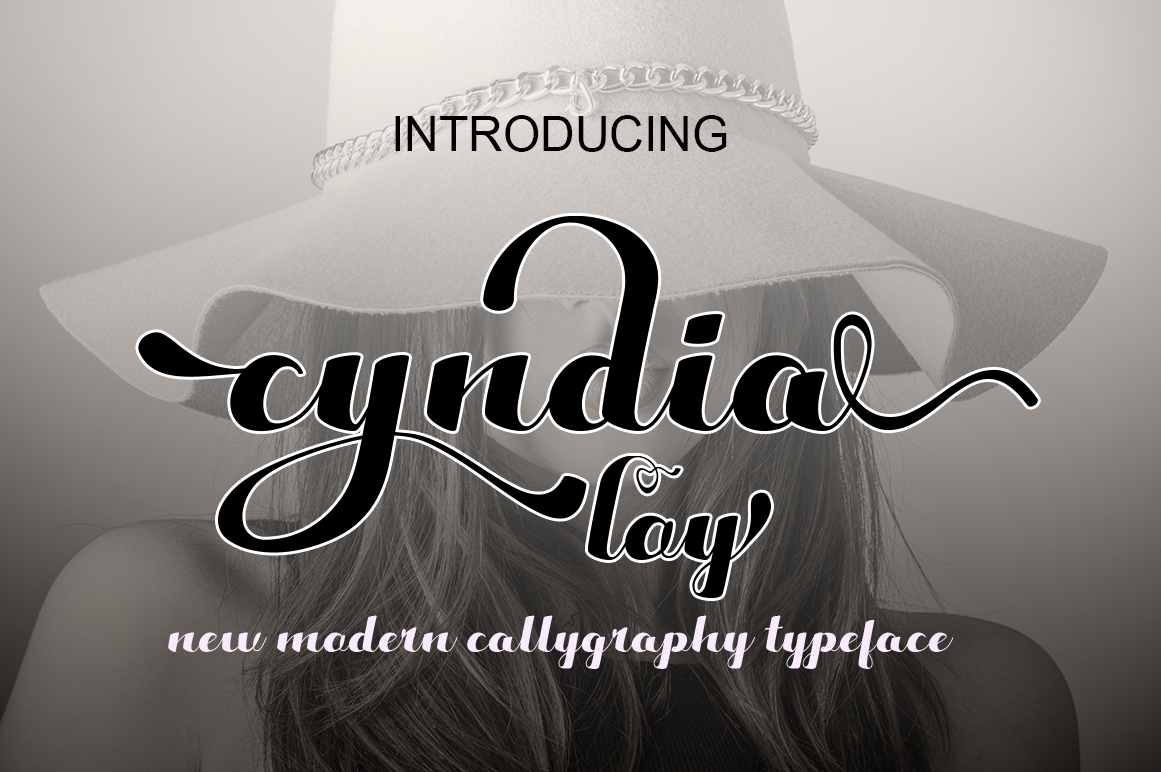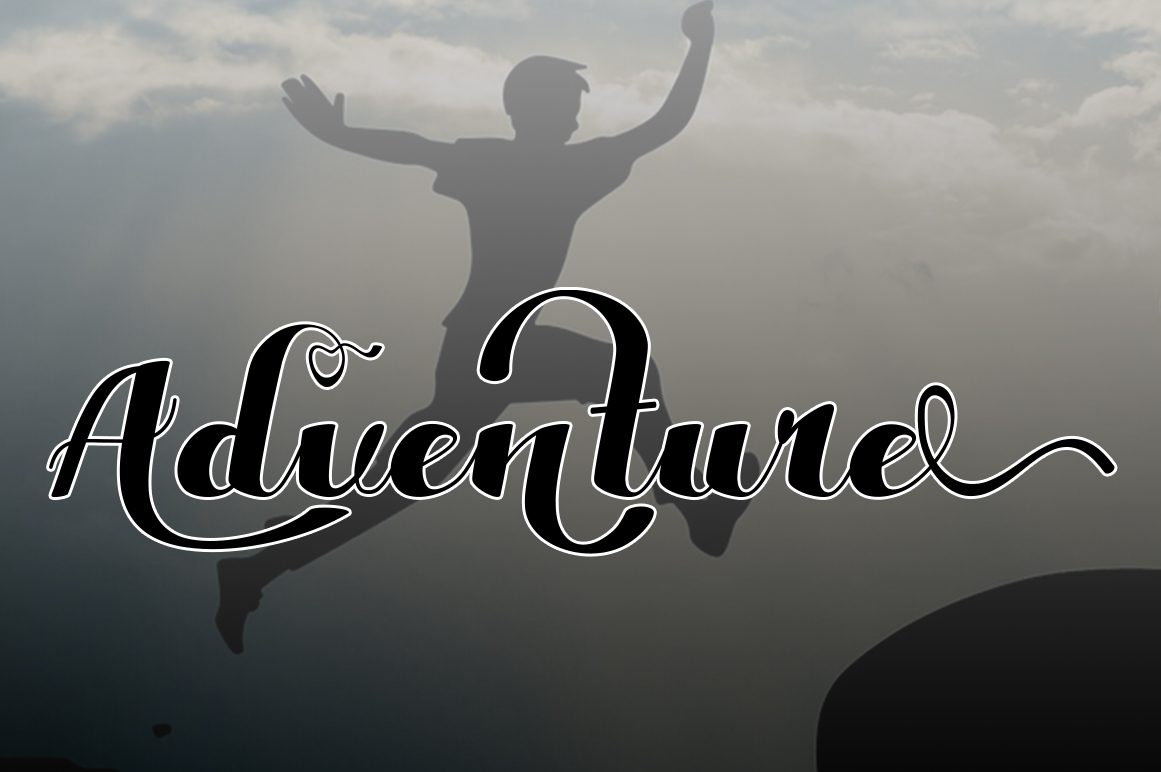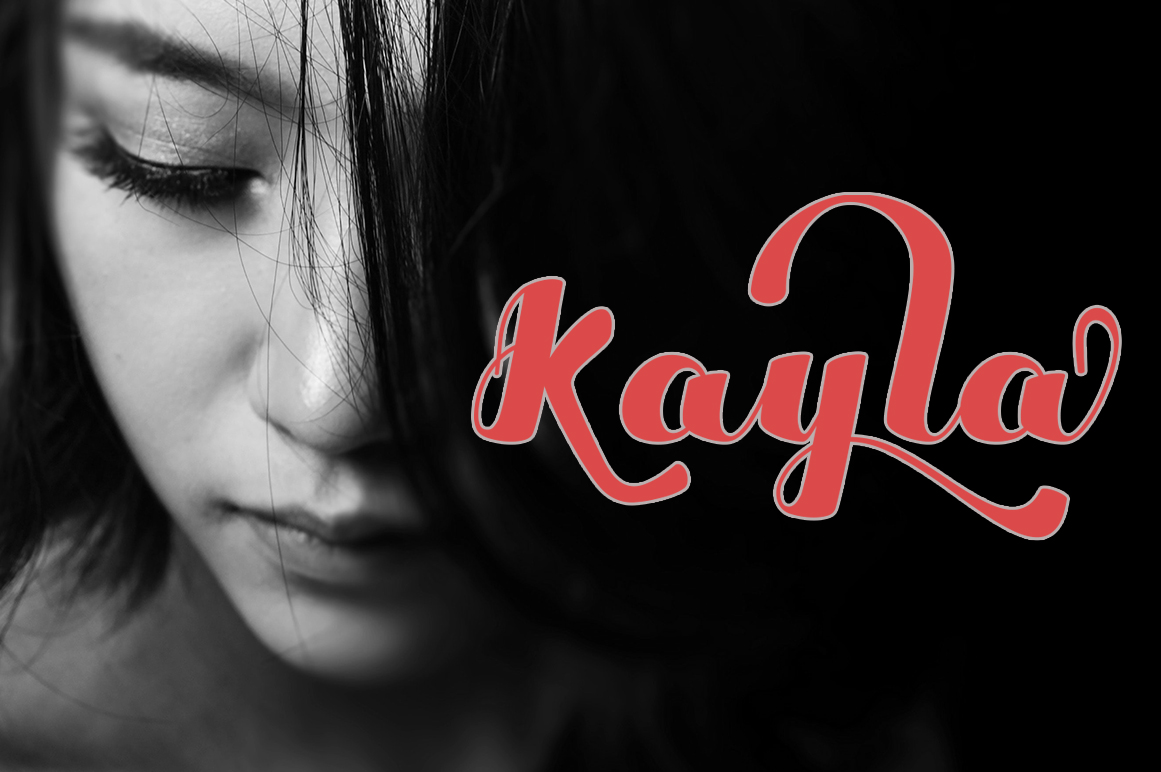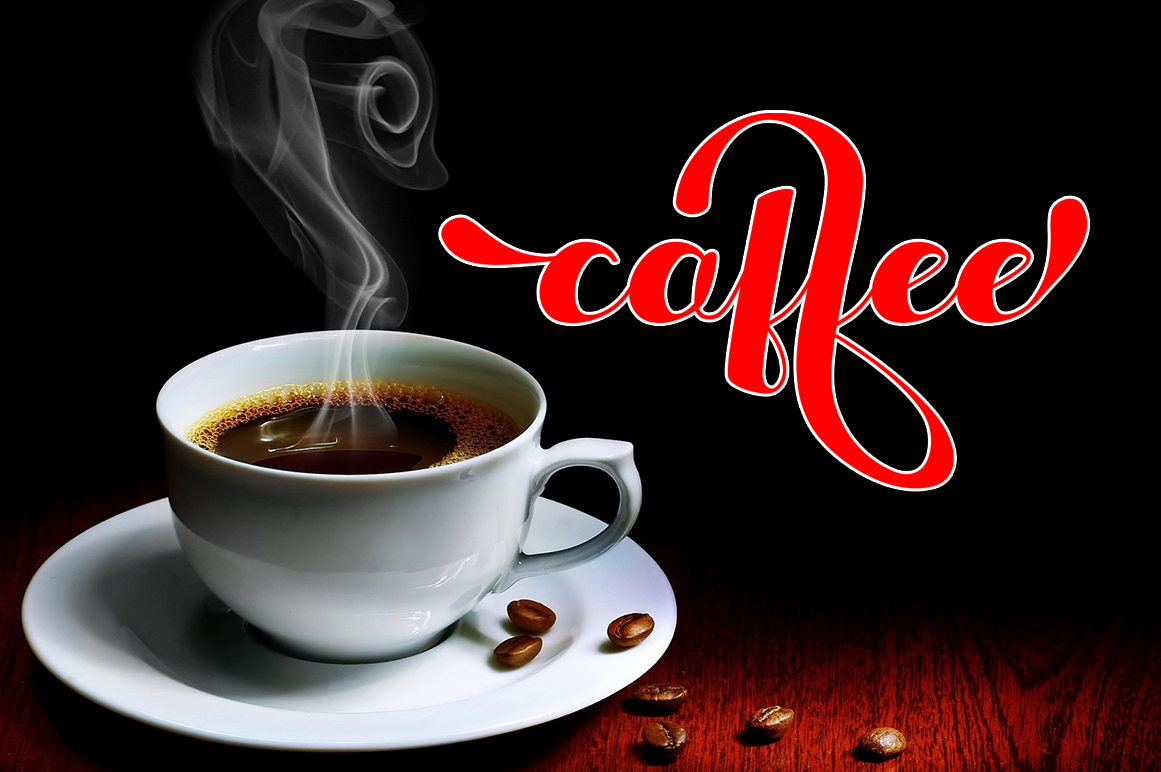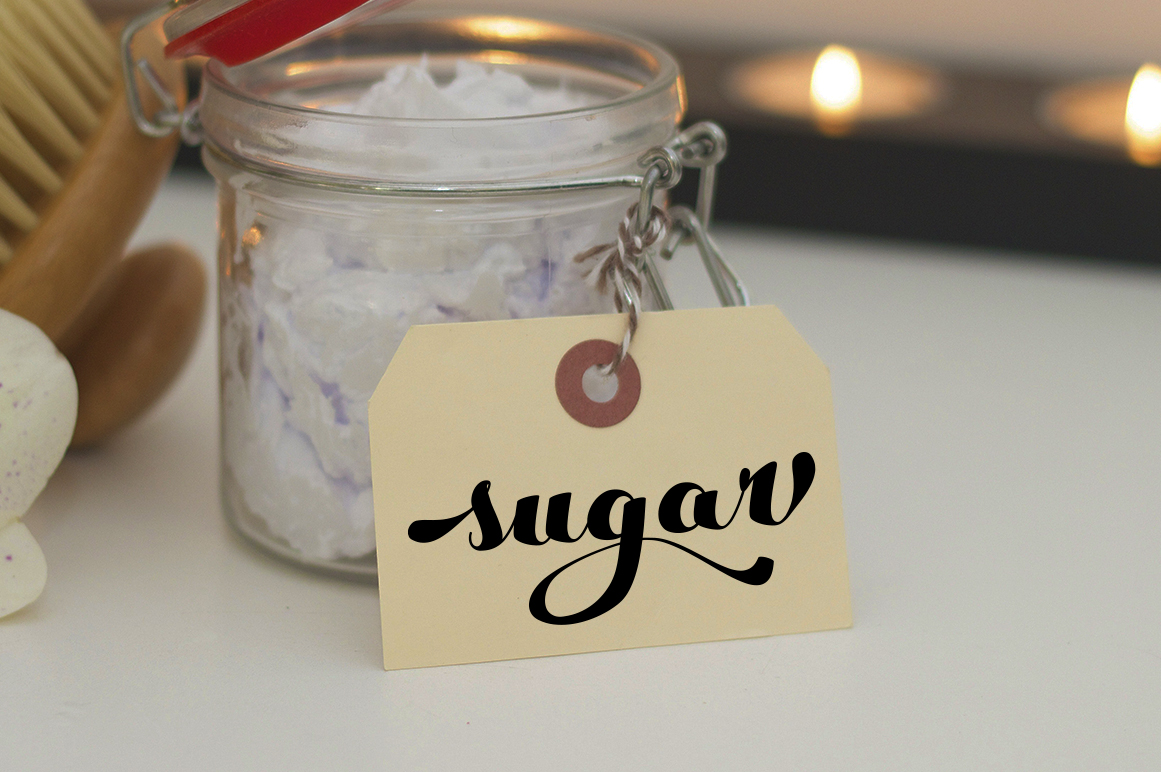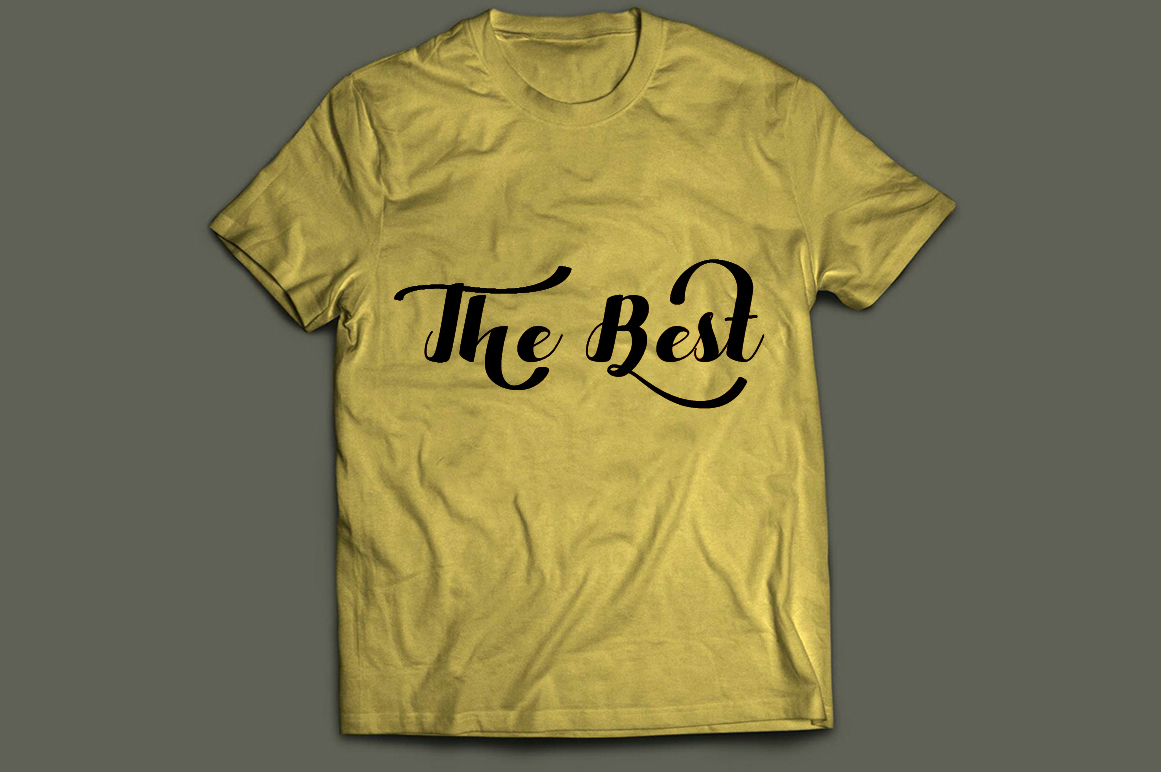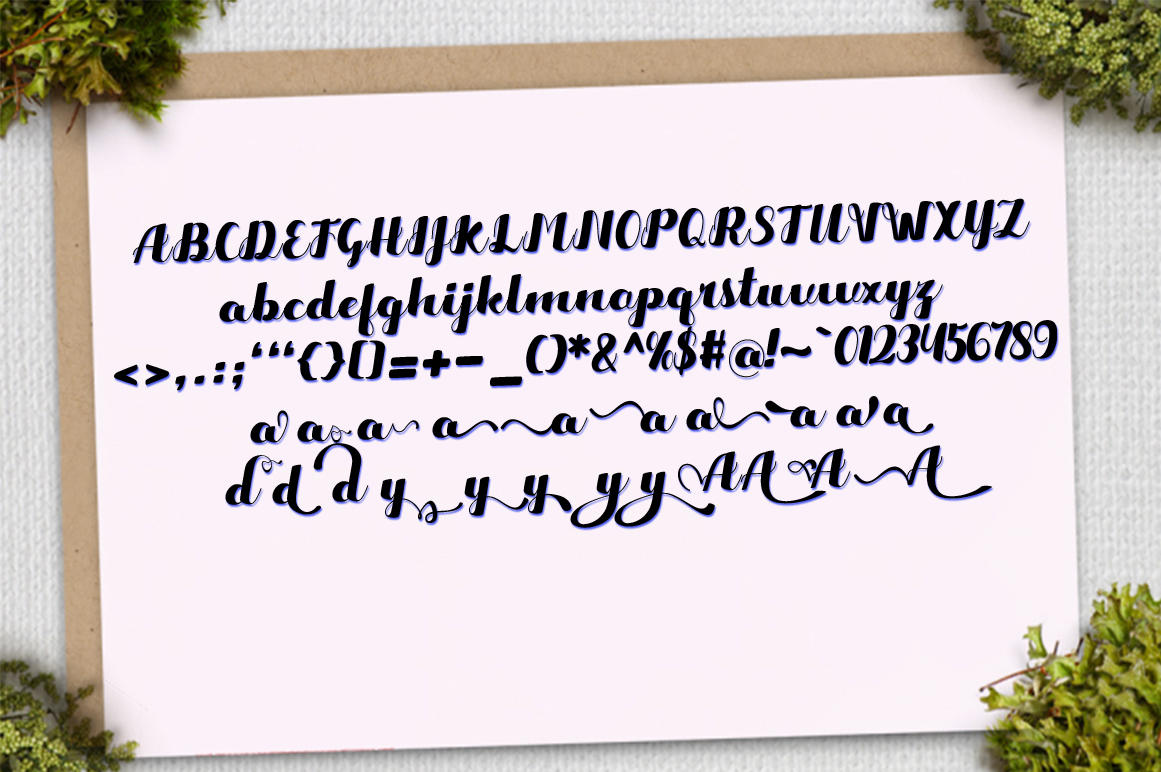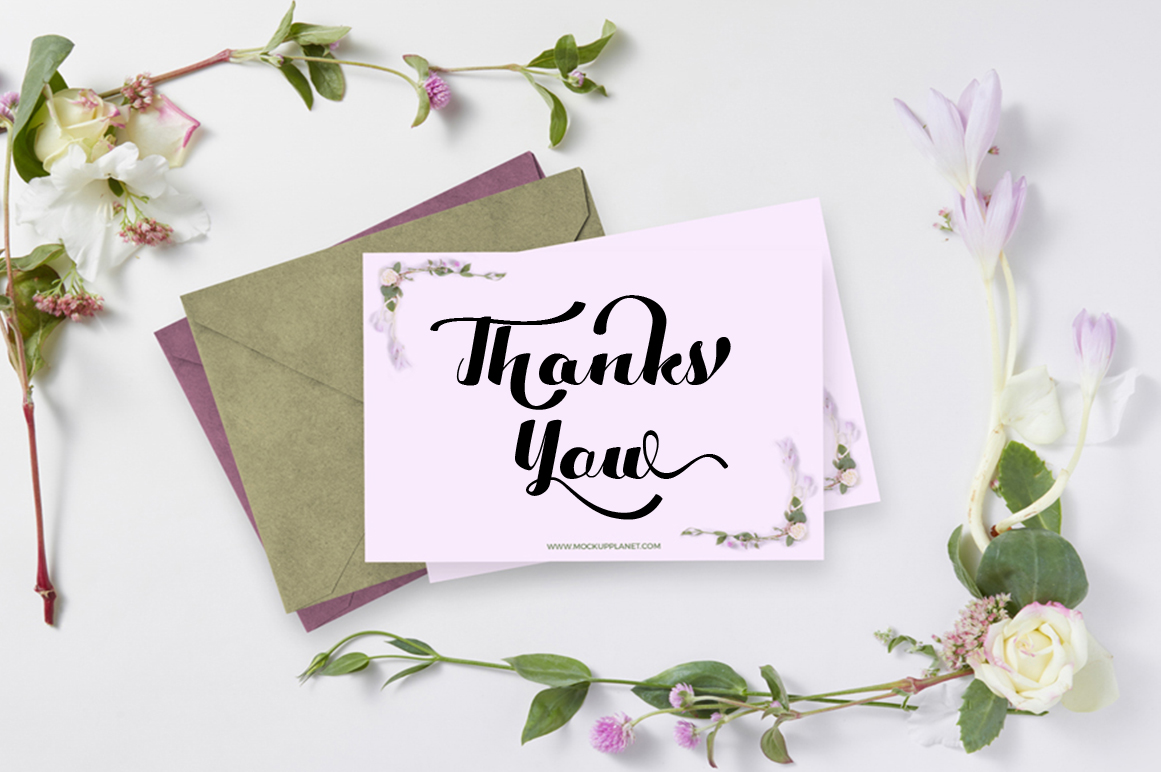
Cyndia Loy Font
About Cyndia Loy Font
Cyndia Loy is an amazing font set with over 600 glyphs, making it a unique and customizable font for wide use. This calligraphic, decorative font with a dancing appeal is a great way to add some elegance to your designs.